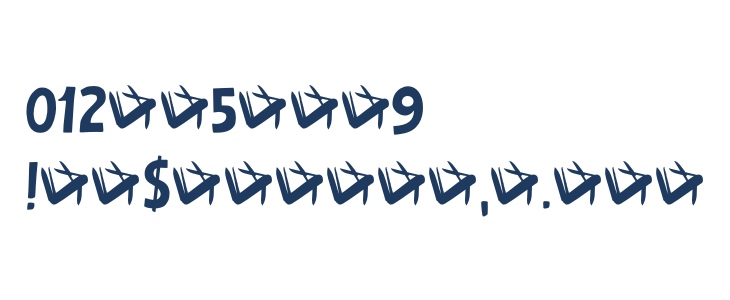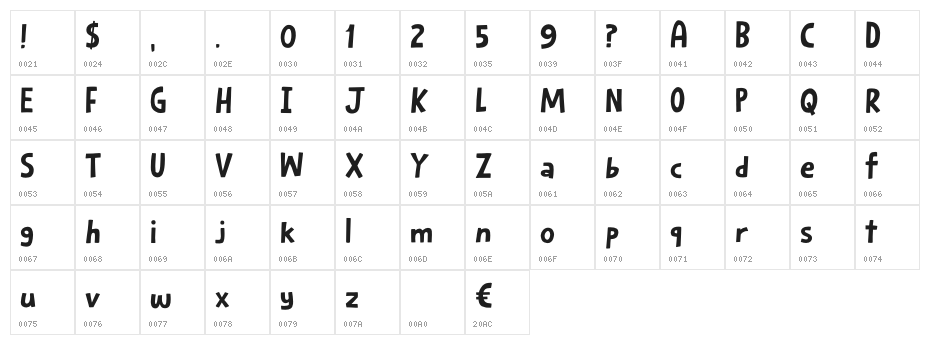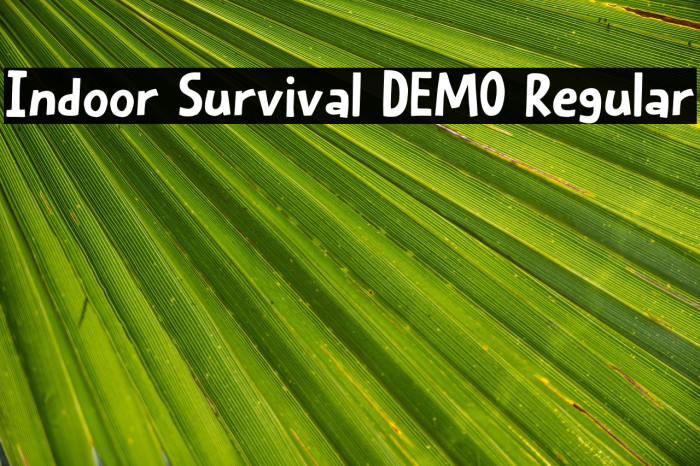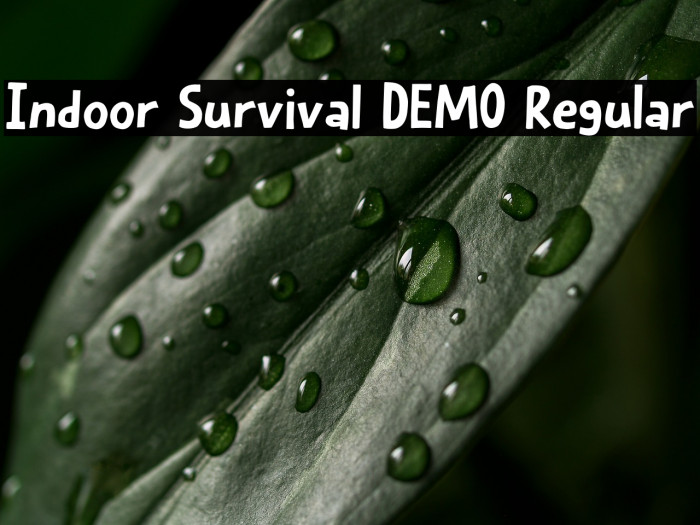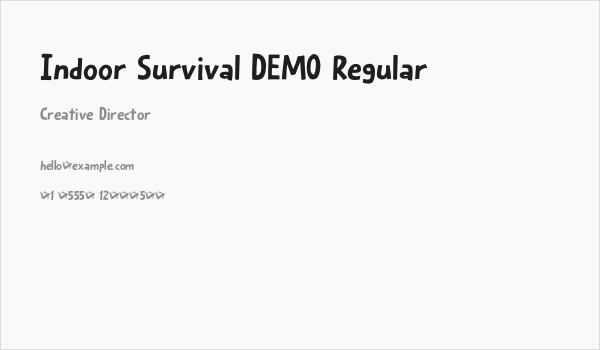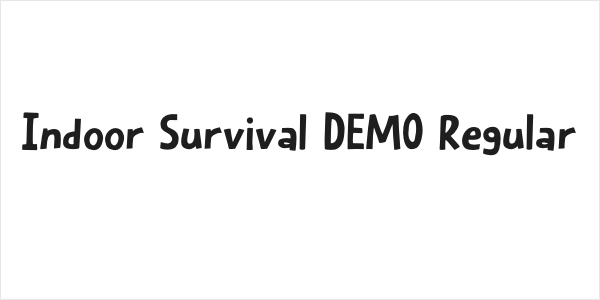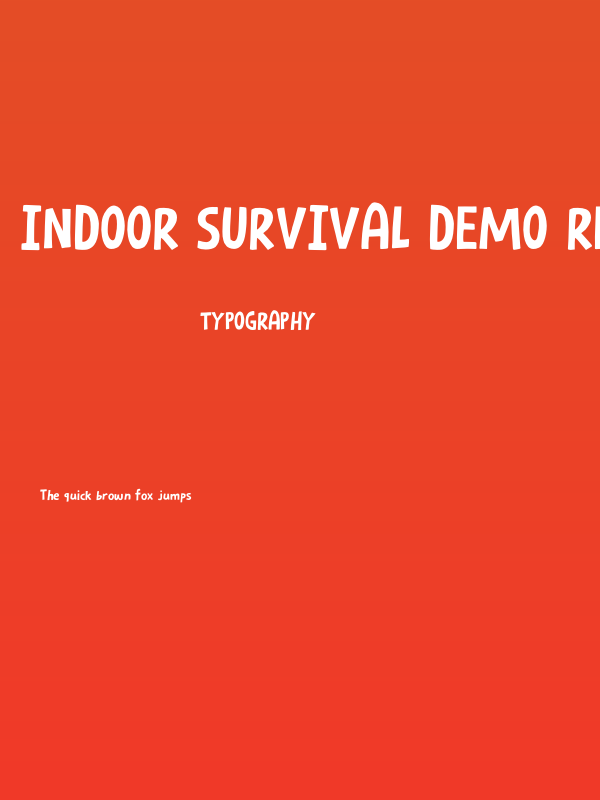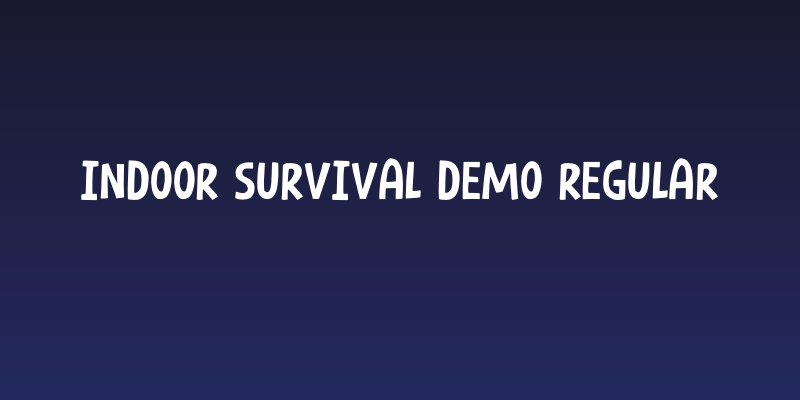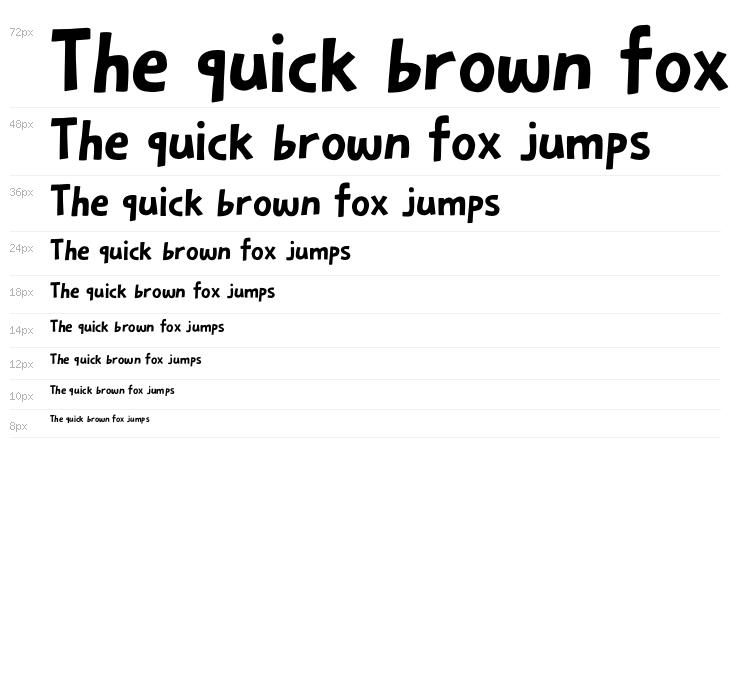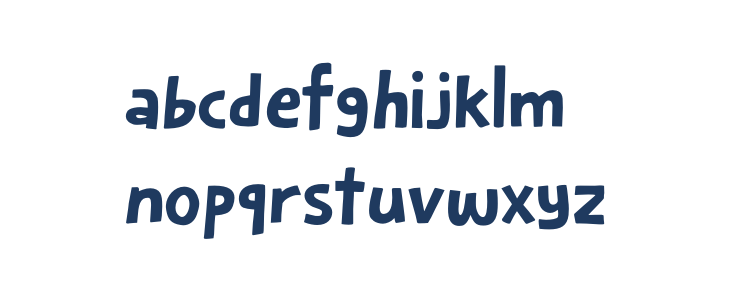
Indoor Survival DEMO Regular Font
Indoor Survival DEMO Regular Description
This font features a playful and bold style with slightly irregular shapes, giving it a hand-drawn appearance. The uppercase letters are tall and slightly narrow, while the lowercase letters maintain a consistent height, providing a cohesive look. The numbers are bold and match the overall style, ensuring readability. Special characters are creatively designed, adding a unique flair. The font's strokes are thick, contributing to its strong visual impact. This font is ideal for projects that require a fun and informal touch, such as children's books, posters, or creative branding.
| Overall Style | Playful, Informal |
| Proposed Projects | Children's books, posters, creative branding, informal invitations. |